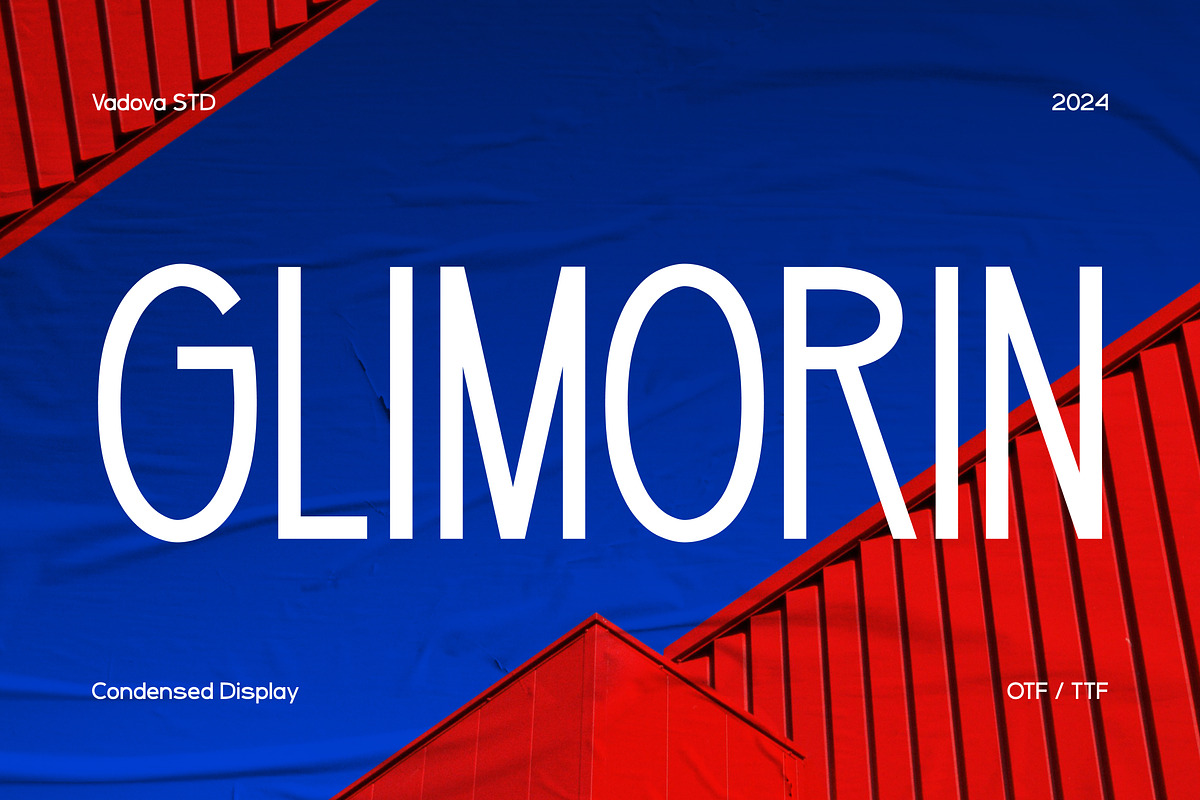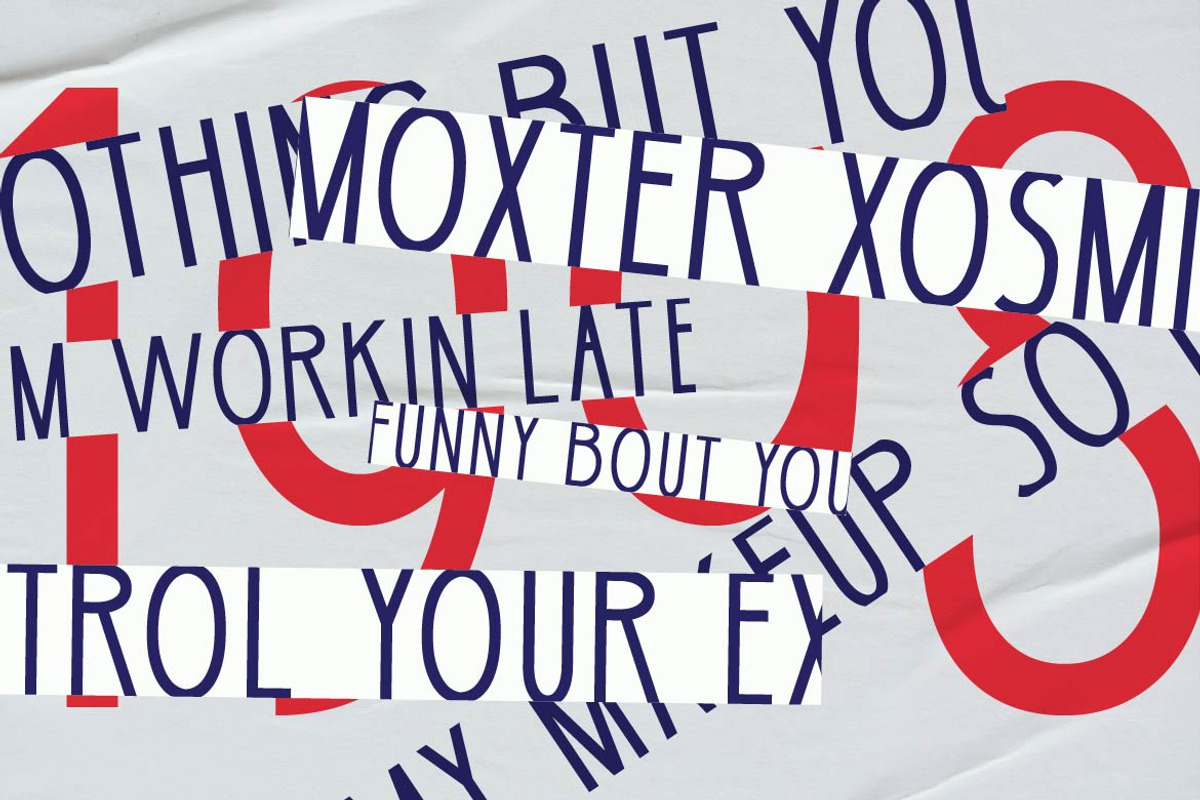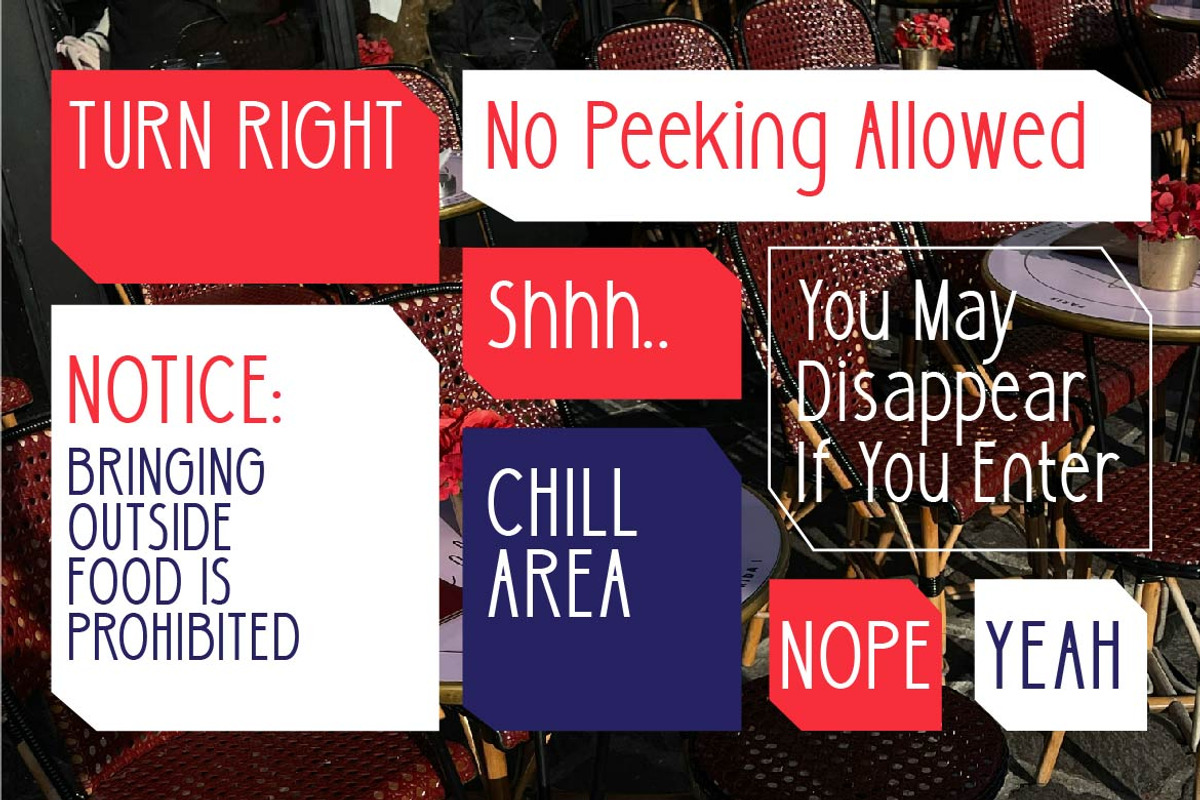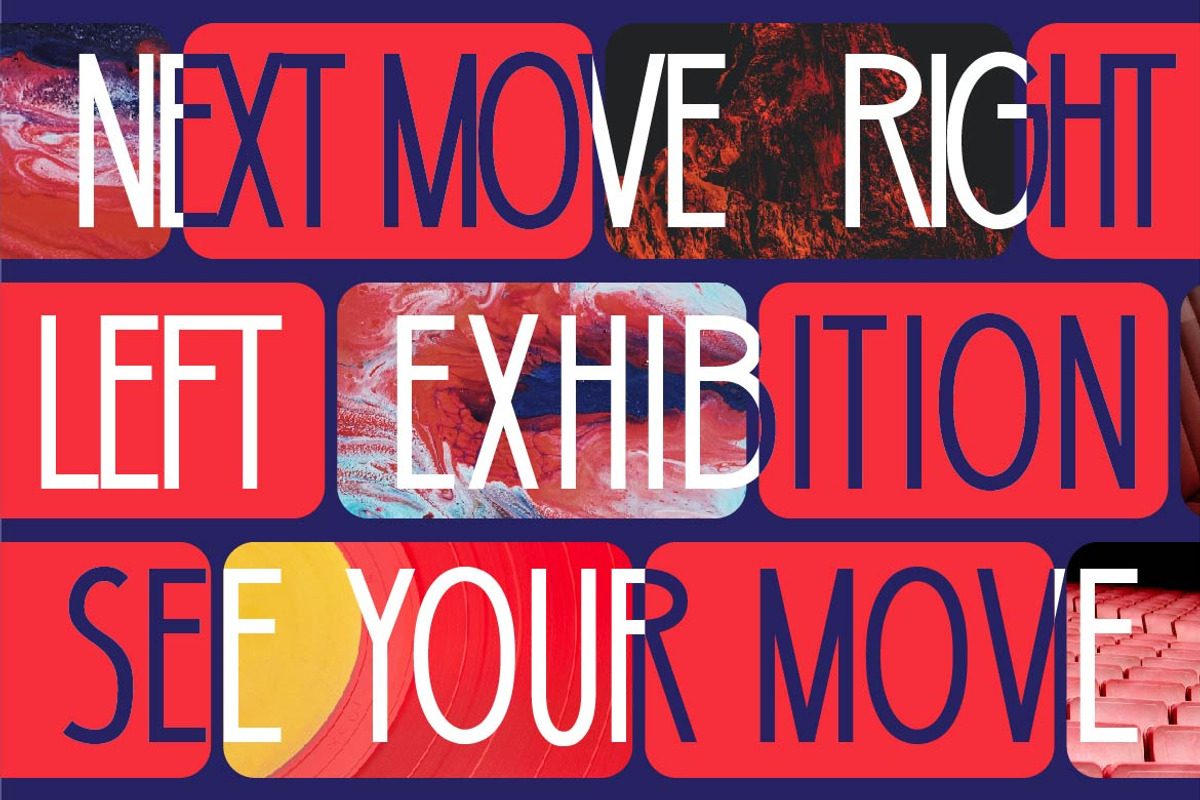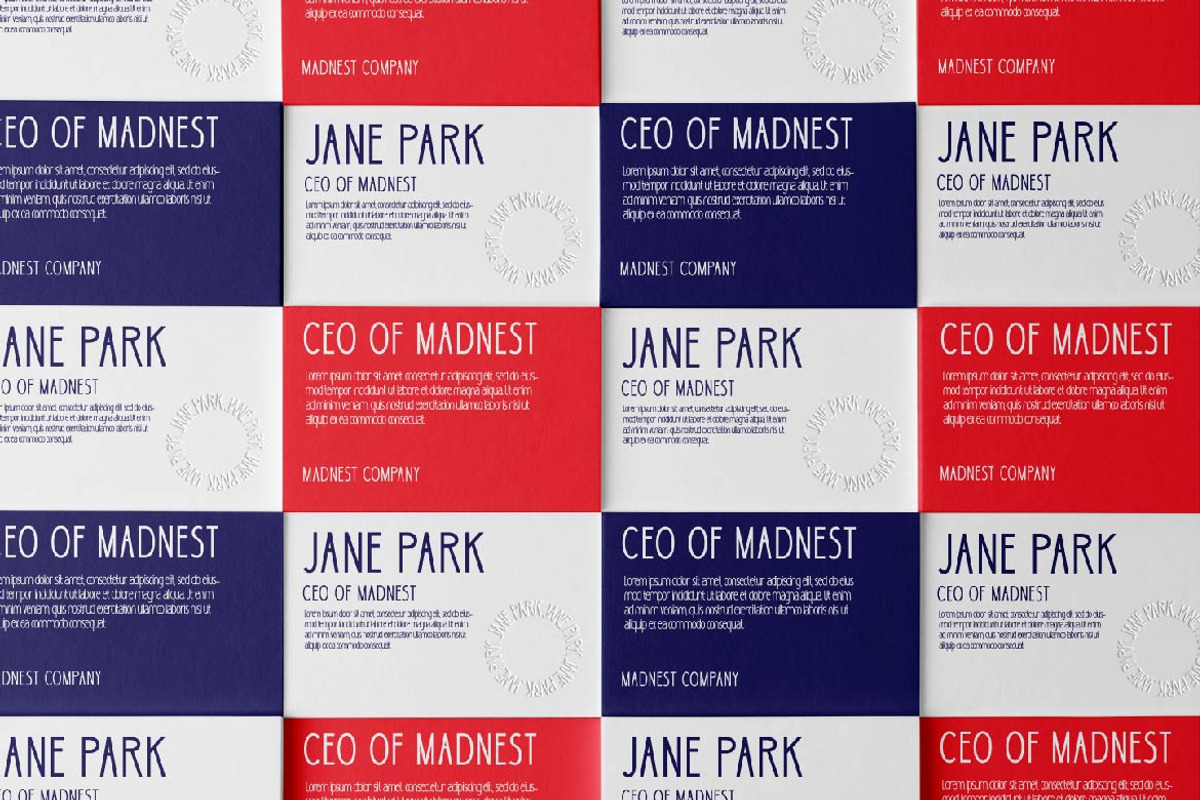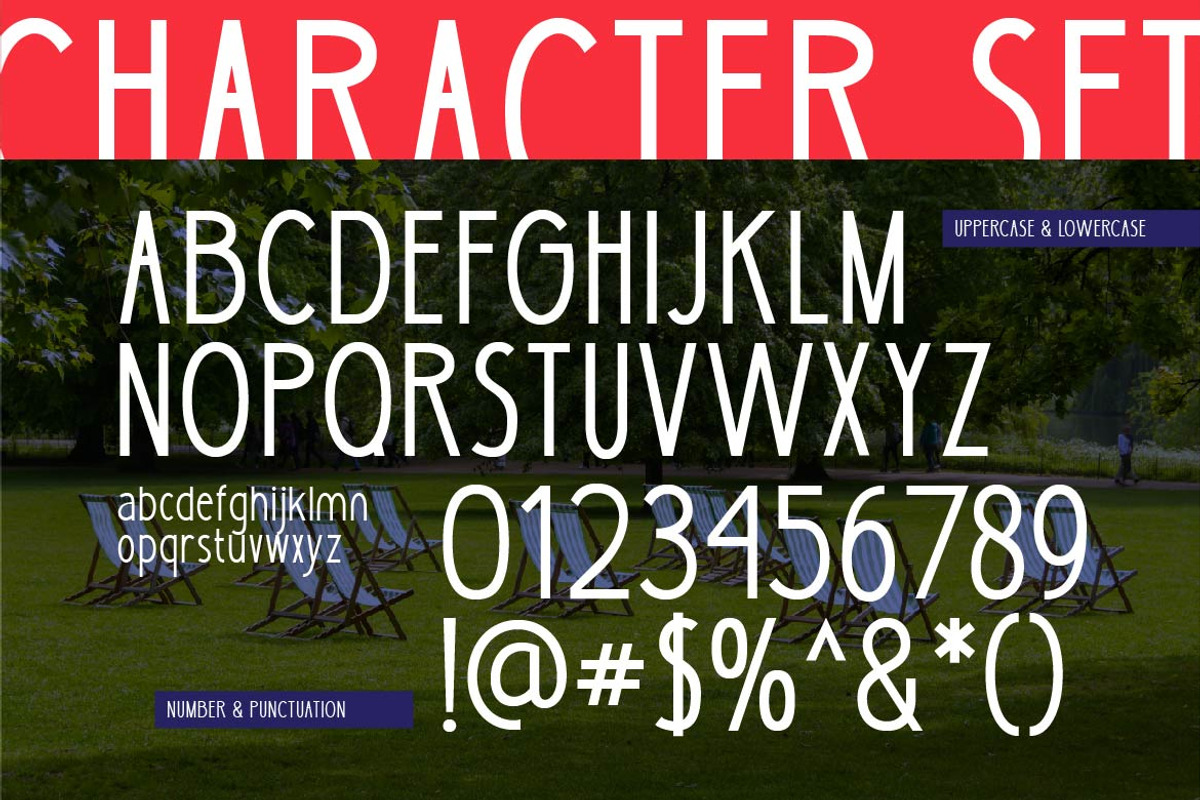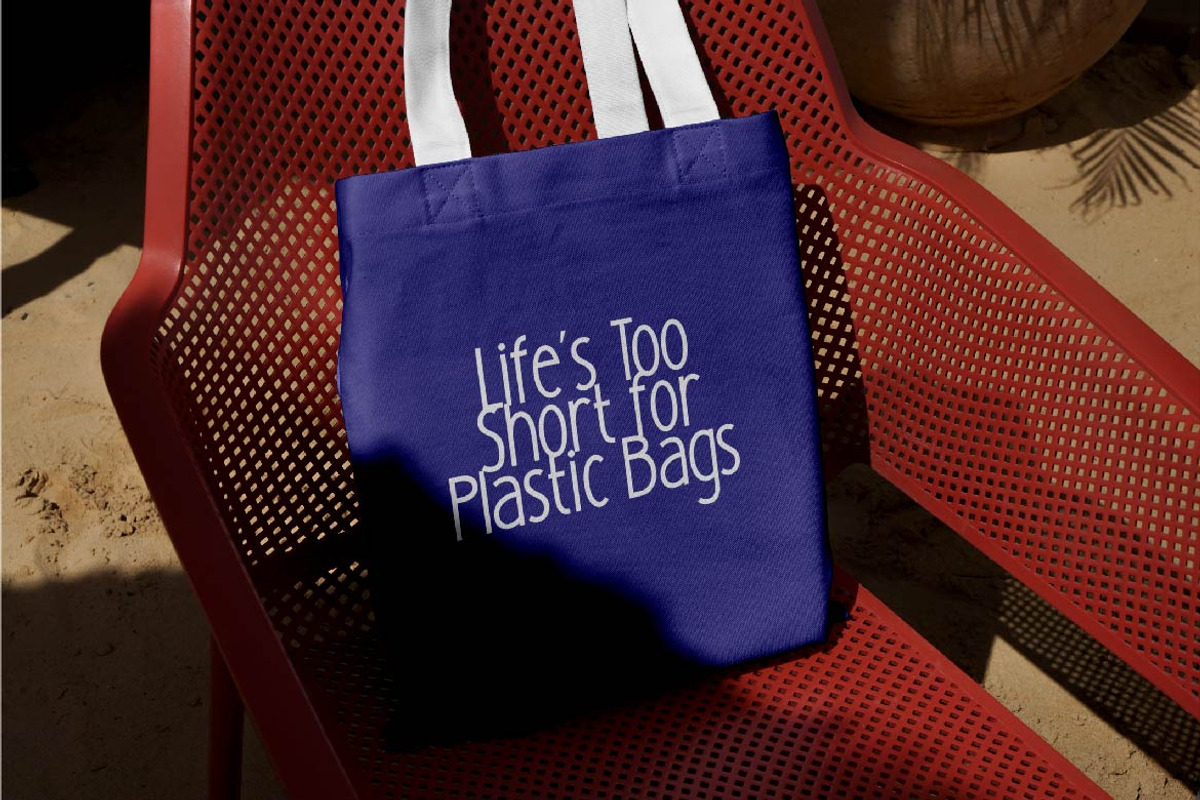
Glimorin – Condensed Display Typefac
Glimorin is a modern condensed display font designed for impactful headlines and bold statements. Its tall, narrow proportions deliver a clean, stylish, and contemporary look while maintaining excellent readability.
Perfect for posters, editorials, branding, logos, and digital media, Glimorin ensures your text stands out with confidence and clarity.
Condensed sans serif with modern proportions
Tall and narrow shapes for maximum impact
Stylish and versatile for both print & digital
Perfect readability in bold display settings
Headlines & Titles – bold and striking typography
Editorial & Magazines – stylish layouts with impact
Posters & Advertising – attention-grabbing statements
Branding & Logos – modern condensed identity
Digital Media & Social Content – sleek and trendy visuals
Web & App Design – clean display type for UI/UX
Uppercase & Lowercase Letters
Multilingual Support – extended language coverage
With Glimorin, you can create bold, modern, and condensed typography that delivers style and strength in every design.